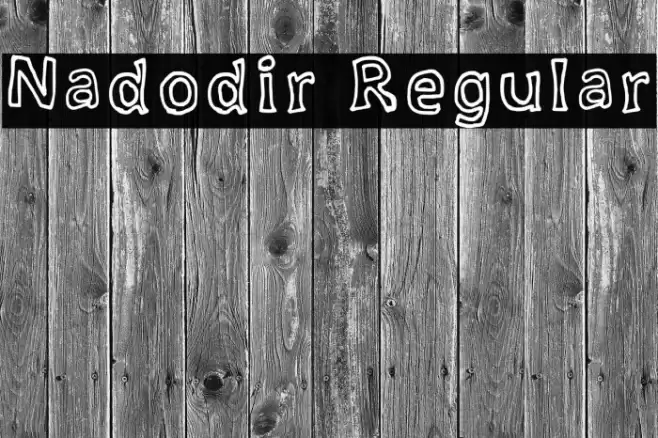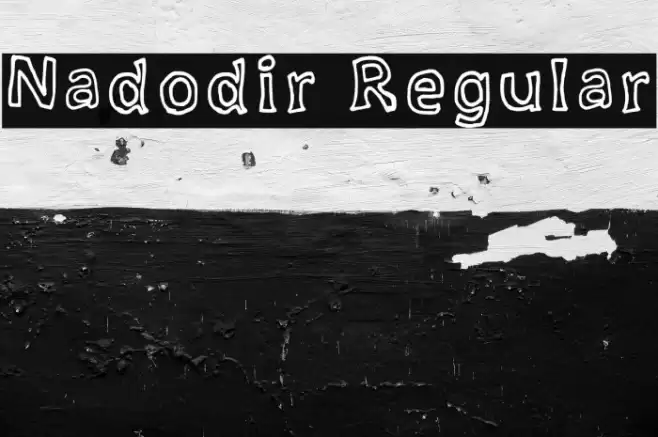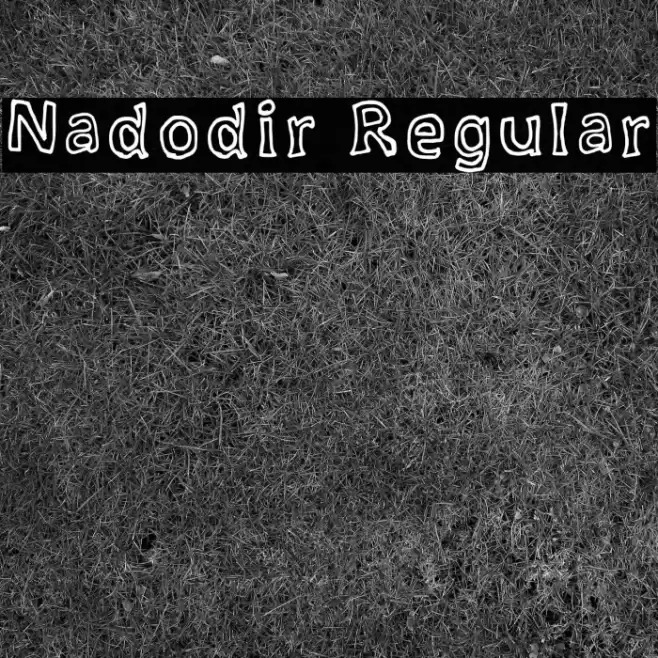
Nadodir Regular Font
Nadodir Regular Description
This font features a playful and quirky design with hand-drawn characteristics. Each letter has a unique, uneven outline that gives it a whimsical and informal appearance. The strokes are bold and irregular, adding to the font's charm and making it stand out. The uppercase and lowercase letters maintain a consistent style, while the numbers and special characters complement the overall look. This font is perfect for projects that require a fun and casual vibe, such as children's books, playful branding, or creative posters.
A playful, hand-drawn font with bold, irregular outlines from Cartoon fonts.
- Proposed Projects: Ideal for children's books, playful branding, creative posters, and informal invitations.
- Overall Style: Playful, Whimsical